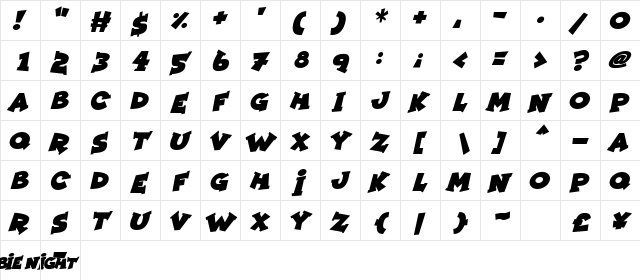
Zombie Night Italic
Design Context for Zombie Night Typeface
Zombie Night is a composed and adaptable typeface that performs quietly and consistently across a wide range of design contexts. The dynamic lean of this cut emphasises speed and emphasis in any layout.
Pro Tip: Try Zombie Night for annotation and caption copy alongside an upright companion — the contrast in angle creates a dynamic but ordered typographic system.